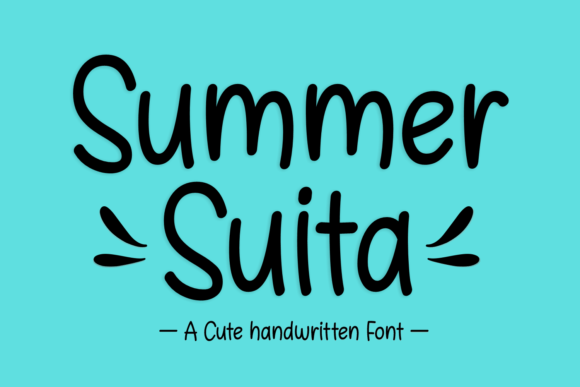
Journey into the world of Summer Suita, a captivating script font family that exudes elegance and charm. Experience the allure of this hand-crafted creation by Riman (7NTypes), a maestro in the realm of typography. Summer Suita's smooth contours and graceful curves evoke a sense of tranquility and joy, transforming your designs into enchanting visual masterpieces.
Immerse yourself in the flowing beauty of Summer Suita, a font family reminiscent of a gentle summer breeze. Its delicate strokes and subtle flourishes add a touch of playfulness and whimsy to your projects, creating designs that are both eye-catching and enduring. With Summer Suita, you have a font that speaks volumes, conveying messages with an eloquence that captivates and inspires.
Unleash your creativity with Summer Suita, the perfect font for logos that demand attention. Its clean lines and distinctive character make it an ideal choice for branding projects that seek to leave a lasting impression. Create logos that resonate with your audience, embodying your brand's essence with a font that exudes both professionalism and charm.
Explore the versatility of Summer Suita, a font that seamlessly adapts to a myriad of design projects. Whether you're crafting invitations, posters, social media graphics, or website designs, Summer Suita rises to the occasion, adding a touch of sophistication and charm to every endeavor. Its adaptability knows no bounds, allowing you to effortlessly elevate your designs and make a statement that lingers in the minds of your audience.
With Summer Suita, your designs take on a life of their own, captivating viewers with their effortless grace and timeless appeal. This font is a symphony of elegance, exuding a charm that transcends trends and resonates with audiences of all ages. Embrace the allure of Summer Suita and embark on a creative journey that leaves an unforgettable mark.